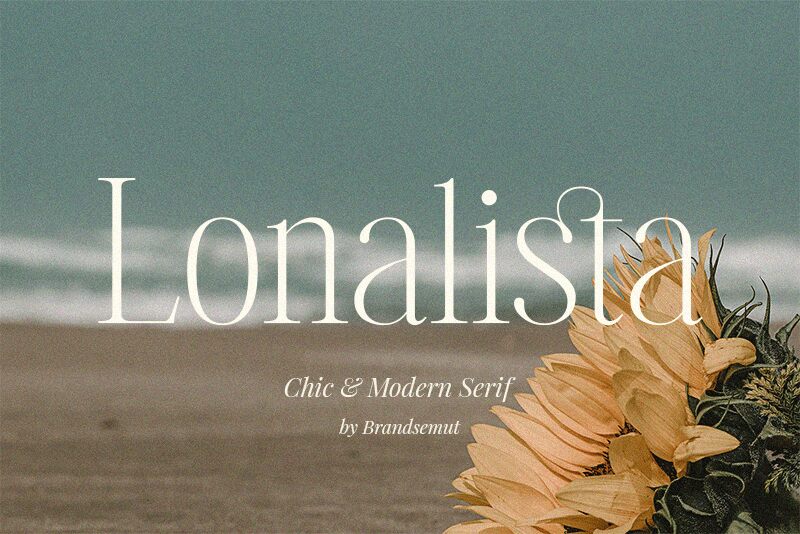
Lonalista
Lonalista, a modern and modern serif font by BrandSemut, offers a sleek and sophisticated look with its light weight and condensed width.
Perfect for branding projects, Lonalista adds a touch of elegance to logos, business cards, and websites. Its contemporary style also makes it suitable for fashion magazines and editorial layouts. With Lonalista, your content will exude a sense of refinement and professionalism, captivating readers with its refined aesthetic.
Elevate your design projects with the clean lines and effortless elegance of Lonalista.